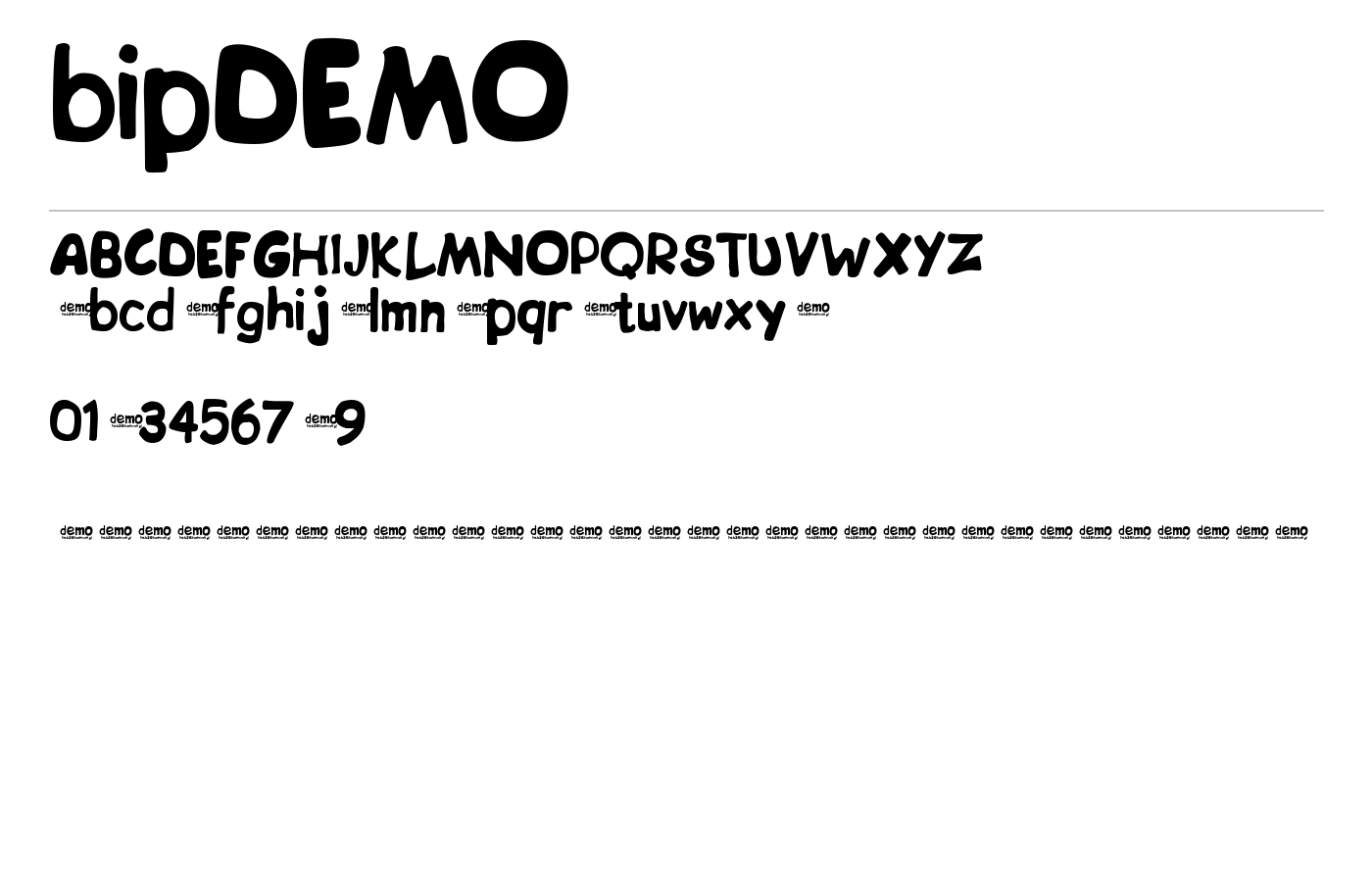
bipDEMO is a playful, hand-drawn sans serif font with bold, rounded letterforms that give it a friendly and informal character. Its irregular shapes and varying stroke widths make it ideal for creative, casual designs such as children's books, playful branding, or posters that need a fun and approachable vibe. This font works best in headings and display use where its unique personality can shine and attract attention.
bipDEMO Font
About bipDEMO Font